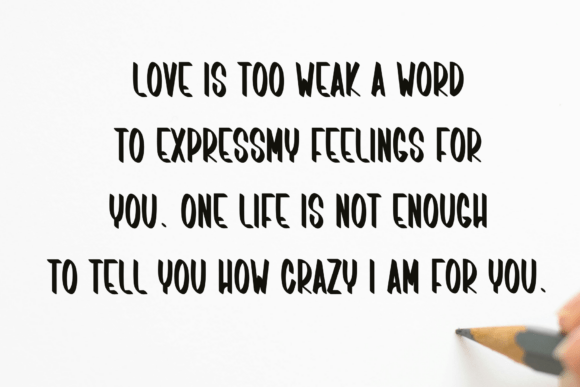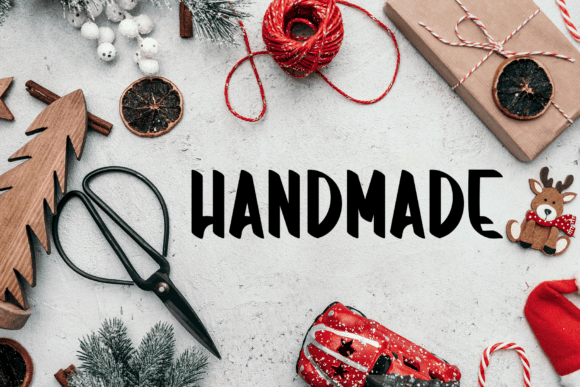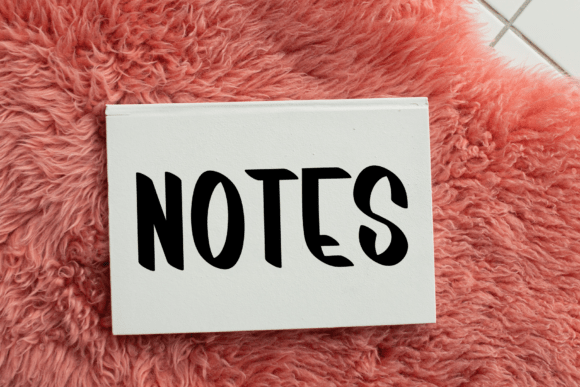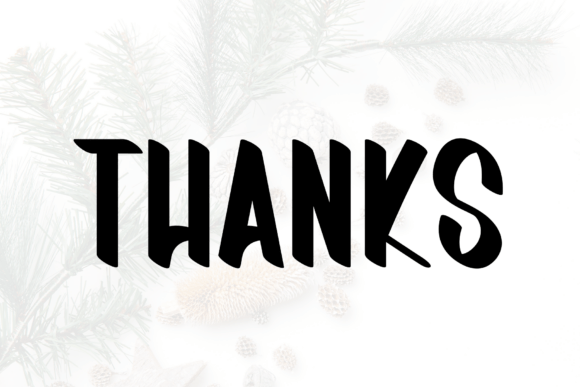
Dance Costume Font: Add a Touch of Whimsy to Your Designs
Are you a designer or crafter looking for a unique and captivating font to elevate your creative projects? Look no further than the Dance Costume font, a sweet and beautiful handwritten font that is sure to add a cozy accent to any design. In this article, we’ll explore the features and benefits of the Dance Costume font, and provide you with inspiration and ideas for incorporating it into your work.
A Font that Dances
The Dance Costume font is a one-of-a-kind typeface that features characters that literally dance along the baseline. This playful and whimsical design element adds a touch of personality and charm to any text, making it perfect for projects that require a bit of flair. Whether you’re creating a logo, invitation, or social media graphic, the Dance Costume font is sure to make your design stand out.
The Dance Costume font is incredibly versatile, making it suitable for a wide range of design projects. Here are just a few ideas to get you started:
- Invitations and Party Decor: Add a touch of whimsy to your party invitations, decorations, and favors with the Dance Costume font.
- Logos and Branding: Use the Dance Costume font to create a unique and memorable logo for your business or brand.
- Social Media Graphics: Add a playful touch to your social media graphics, such as quote graphics, announcements, and promotions.
- Crafting and DIY Projects: Use the Dance Costume font to add a personal touch to your crafting and DIY projects, such as handmade cards, gift tags, and scrapbooking pages.
Why Choose the Dance Costume Font?
So why choose the Dance Costume font for your design projects? Here are just a few reasons:
- Unique and Eye-Catching: The Dance Costume font is a one-of-a-kind typeface that is sure to grab attention and make your design stand out.
- Easy to Read: Despite its playful design, the Dance Costume font is easy to read and understand, making it perfect for use in a variety of contexts.
- Versatile: The Dance Costume font can be used in a wide range of design projects, from logos and branding to social media graphics and crafting projects.
- High-Quality: The Dance Costume font is a high-quality typeface that is designed to look great in any context.
Tips for Using the Dance Costume Font
Here are a few tips for getting the most out of the Dance Costume font:
- Use it Sparingly: While the Dance Costume font is certainly eye-catching, it can be overwhelming if used too much. Use it sparingly to add a touch of whimsy to your design.
- Pair it with Other Fonts: The Dance Costume font pairs well with a variety of other fonts, including serif and sans serif typefaces. Experiment with different pairings to find the one that works best for your design.
- Experiment with Colors: The Dance Costume font looks great in a variety of colors, from bright and bold to soft and pastel. Experiment with different colors to find the one that works best for your design.